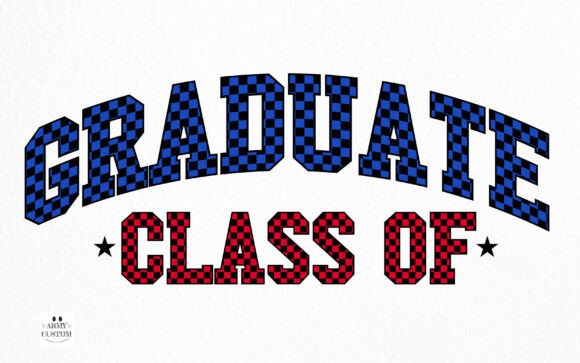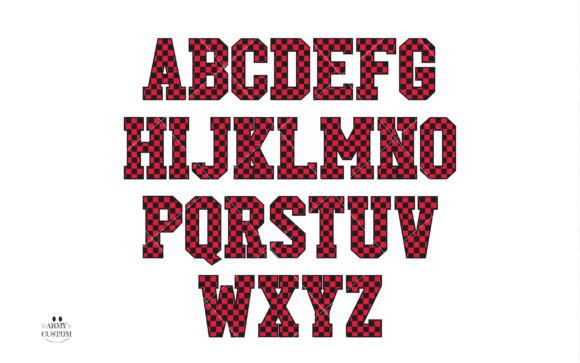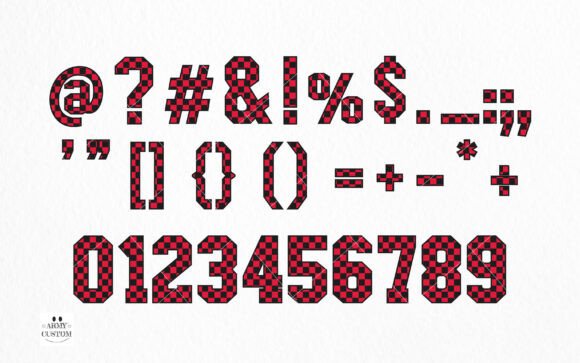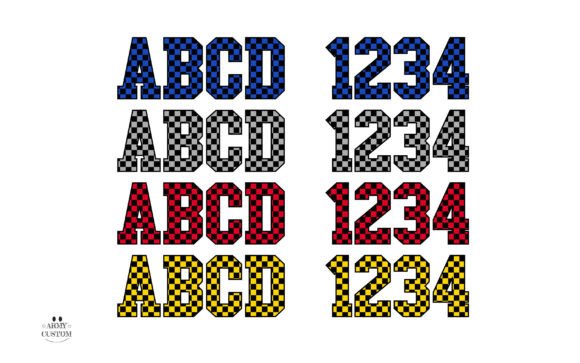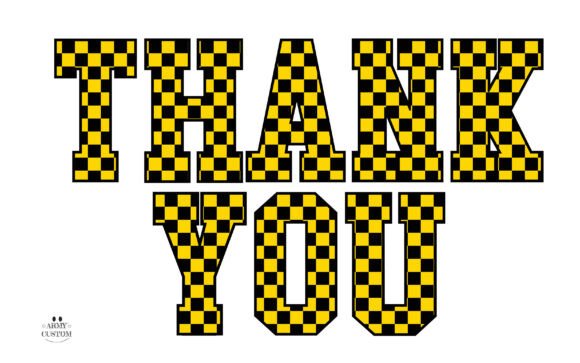
Introducing Checkered: The Racing Flag Style Font that Revs Up Your Designs
Are you tired of using the same old fonts in your designs? Do you want to add a burst of energy and excitement to your projects? Look no further than Checkered, a font that embodies the thrill of racing and the rush of crossing the finish line first. Inspired by the iconic racing flag, Checkered is a unique and captivating font that’s perfect for designers who want to inject a sense of speed, triumph, and rivalry into their work.
The Inspiration Behind Checkered
The Checkered font was developed with the adrenaline rush of competitive sports in mind. The design team wanted to create a font that would evoke the emotions of excitement, energy, and triumph associated with racing. The result is a font that perfectly captures the essence of the racing flag, with its distinctive black and white checkered pattern. This bold and eye-catching design is sure to grab attention and leave a lasting impression on your audience.
Design Features of Checkered
So, what makes Checkered so special? Here are some of the key design features that set this font apart:
• Unique Checkered Pattern: The font features a bold and striking black and white checkered pattern, reminiscent of the iconic racing flag.
• Bold and Eye-Catching: Checkered is designed to grab attention and make a statement. Its bold design ensures that your text will stand out from the crowd.
• Perfect for Sports and Racing Themes: Whether you’re working on a project for a sports brand, a racing team, or a fitness enthusiast, Checkered is the perfect font to convey a sense of speed, energy, and competition.
• Highly Versatile: Despite its bold design, Checkered is a highly versatile font that can be used in a variety of contexts, from headlines and titles to logos and branding.
Who is Checkered For?
Checkered is perfect for designers, crafters, and marketers who want to add a touch of excitement and energy to their projects. Whether you’re working on a project for a sports brand, a racing team, or a fitness enthusiast, this font is sure to help you convey a sense of speed, triumph, and rivalry. Here are some examples of who might find Checkered useful:
• Graphic Designers: If you’re looking for a unique and attention-grabbing font to use in your designs, Checkered is a great choice.
• Racing and Sports Teams: Whether you’re creating branding materials, merchandise, or promotional items, Checkered is a great way to showcase your team’s spirit and energy.
• Fitness and Wellness Professionals: If you’re creating materials for a fitness or wellness brand, Checkered can help you convey a sense of energy, motivation, and enthusiasm.
• Event Organizers: If you’re organizing a racing event, a sports tournament, or a fitness competition, Checkered is a great font to use in your promotional materials.
How to Use Checkered in Your Designs
Using Checkered in your designs is easy. Here are some tips to get you started:
• Use it as a Headline Font: Checkered is perfect for use as a headline font, where its bold design can really make an impact.
• Pair it with Other Fonts: Try pairing Checkered with other fonts to create a unique and interesting contrast.
• Experiment with Colors: While the classic black and white checkered pattern is iconic, don’t be afraid to experiment with different colors to create a unique look.
In conclusion, Checkered is a unique and captivating font that’s perfect for designers who want to add a burst of energy and excitement to their projects. With its bold and eye-catching design, Checkered is sure to grab attention and leave a lasting impression on your audience. Whether you’re working on a project for a sports brand, a racing team, or a fitness enthusiast, Checkered is a great choice. So why wait? Download Checkered today and rev up your designs!